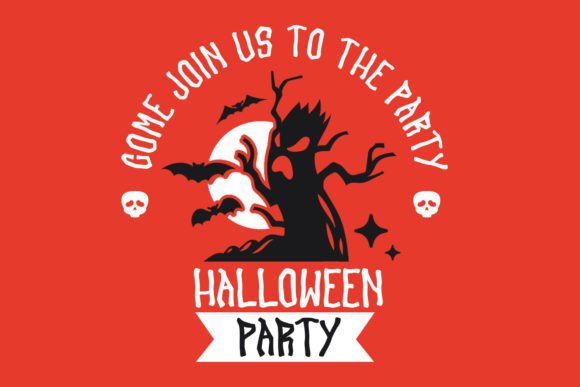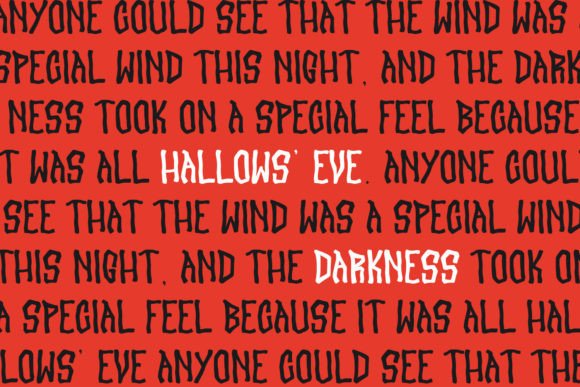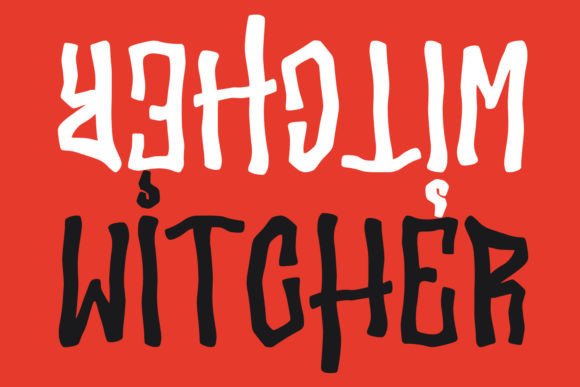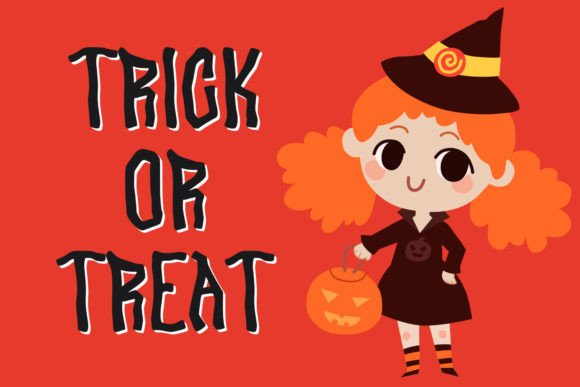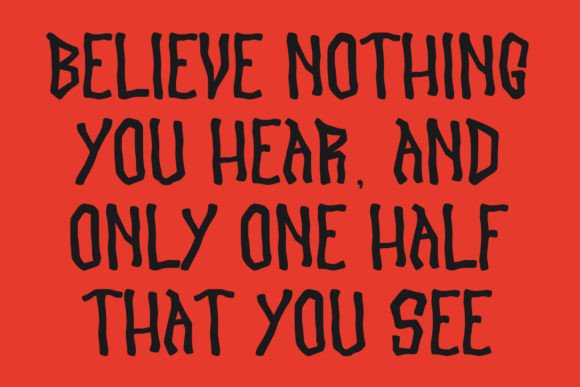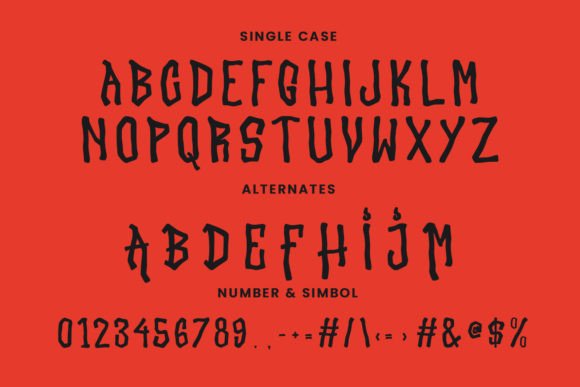
Introduction to Akazzam Font
This font looks like the design element for bone-chilling projects such as haunted houses and Halloween midnight movies.
This font is one that the ambiance of horror is available in every way used, invitations, postcards, posters, and headings for Halloween events This font is PUA encoded which means you can access all of the amazing glyphs and ligatures with ease.